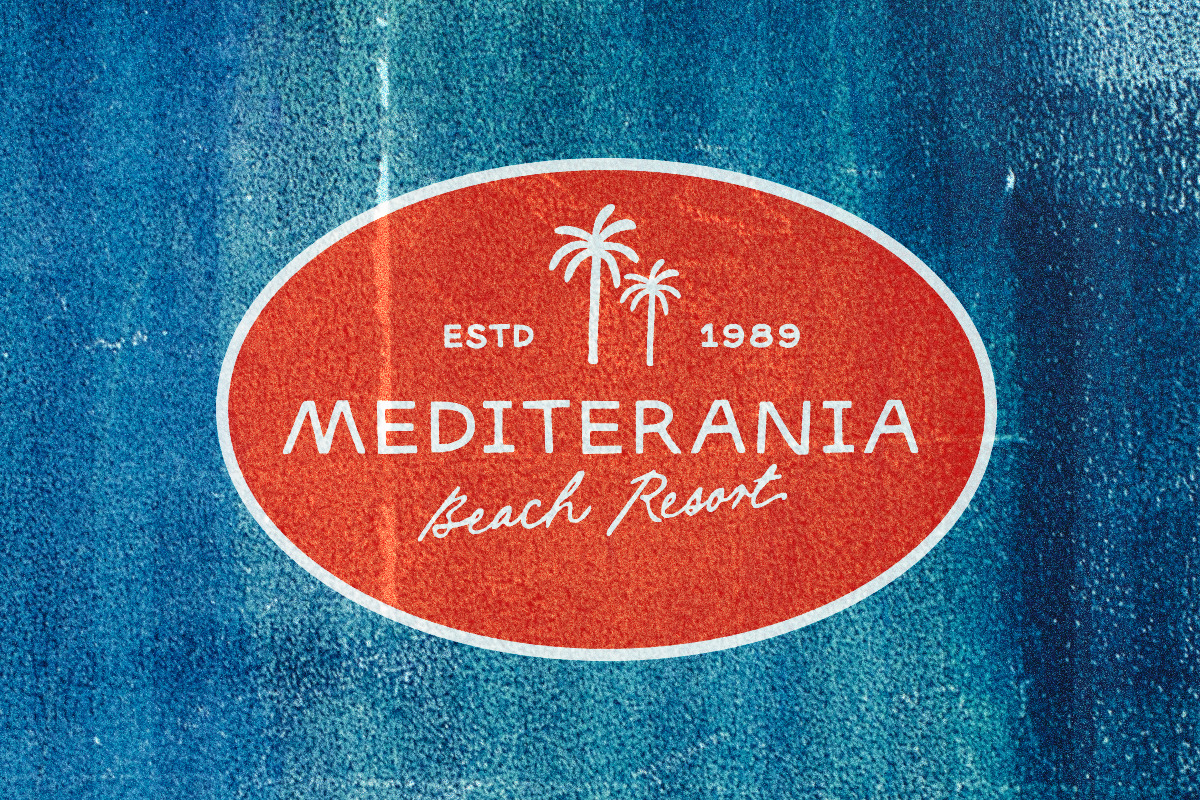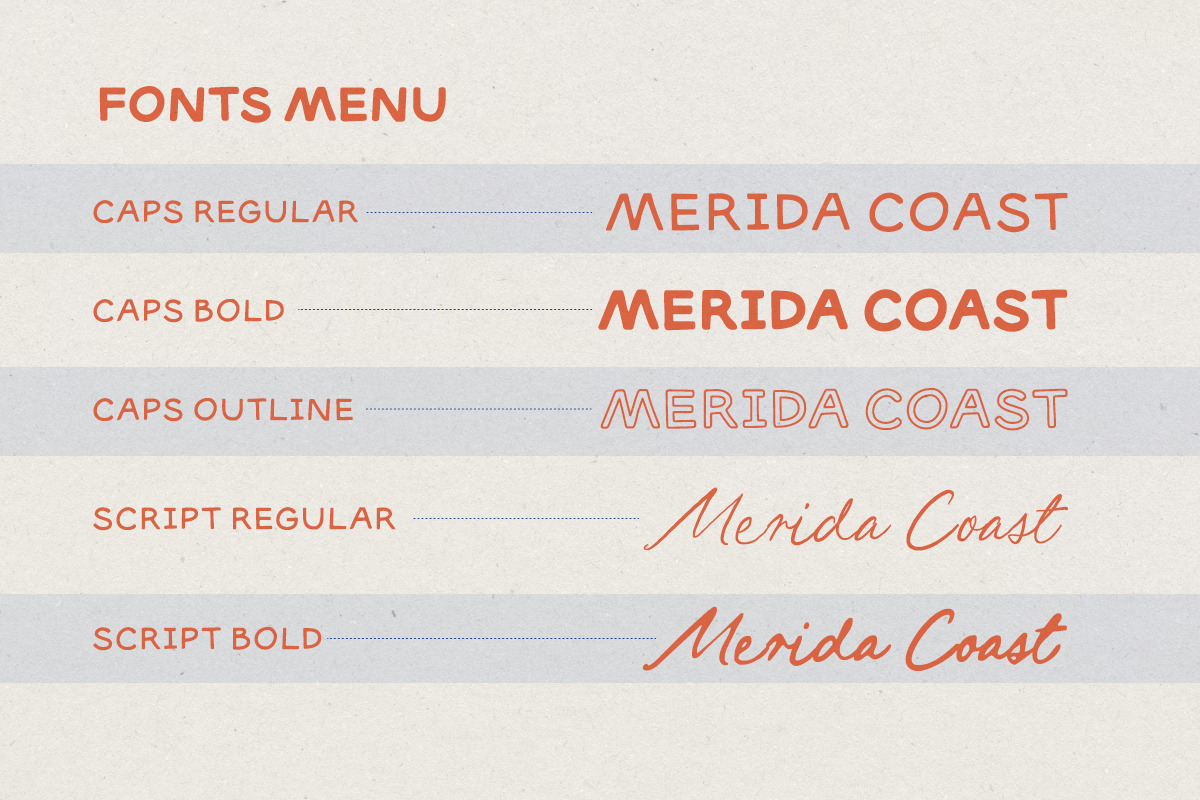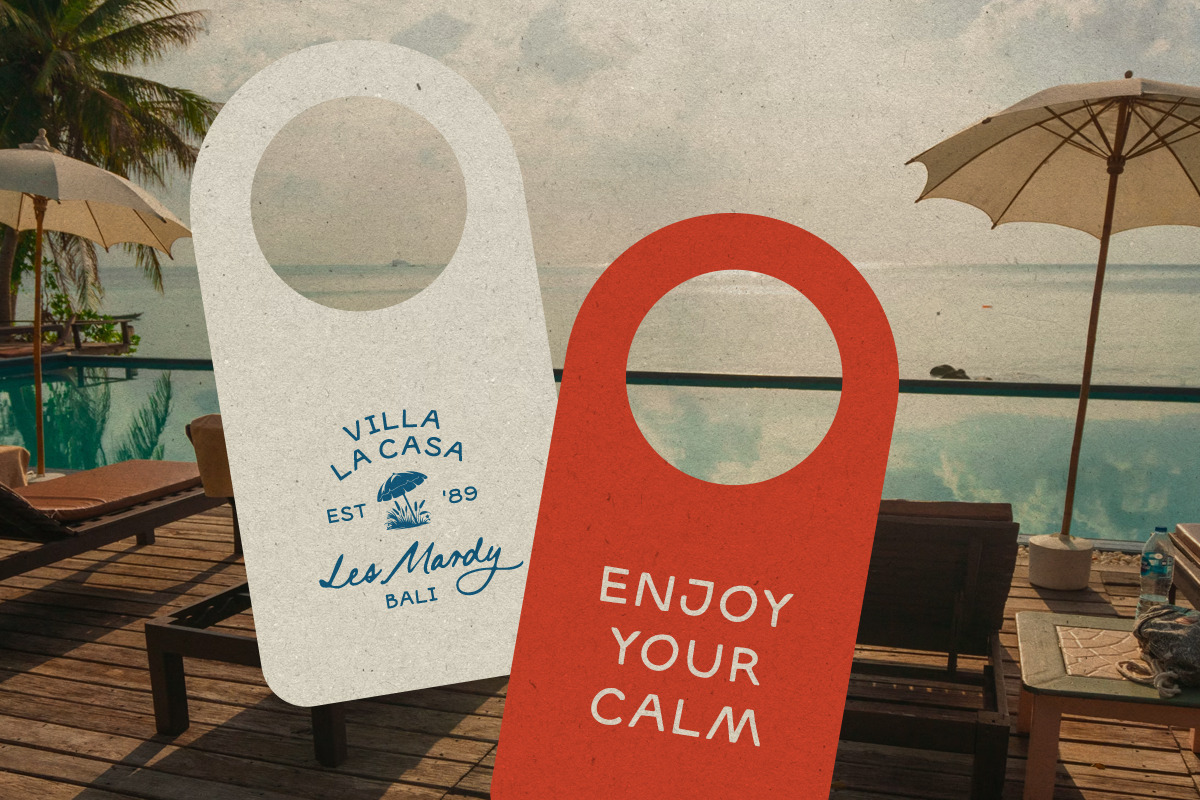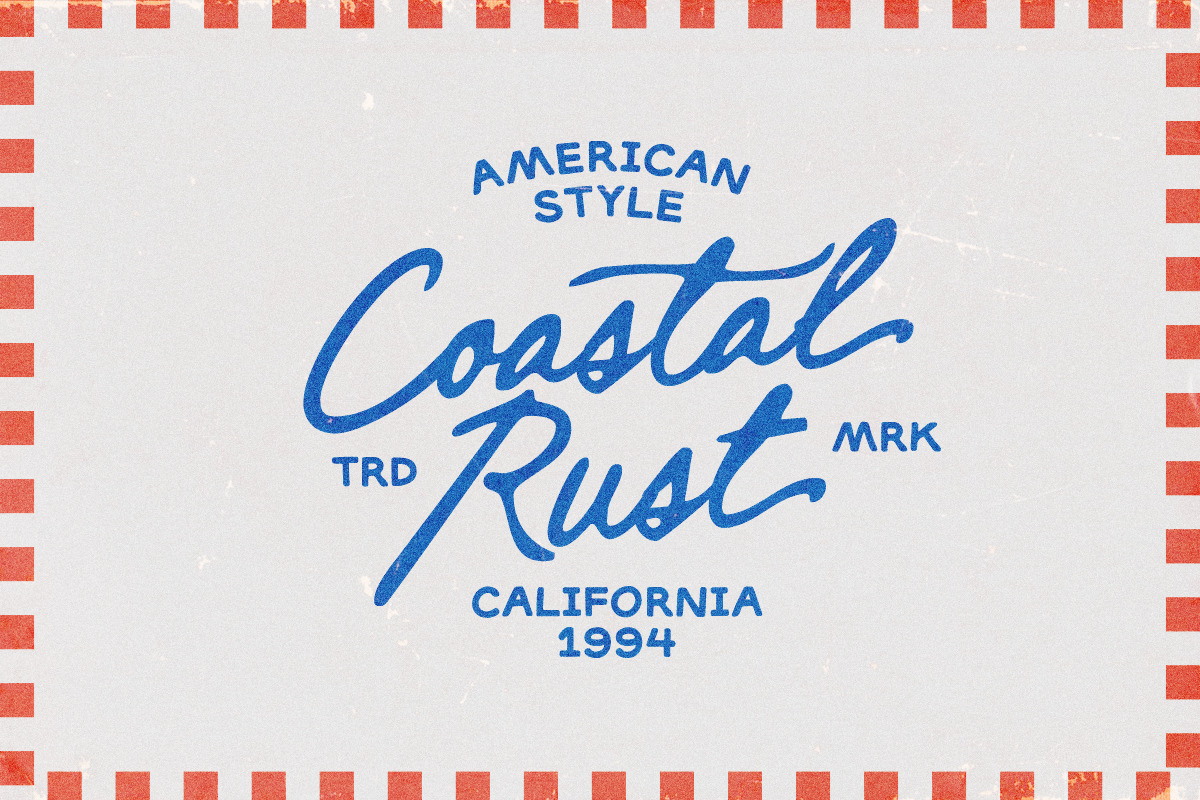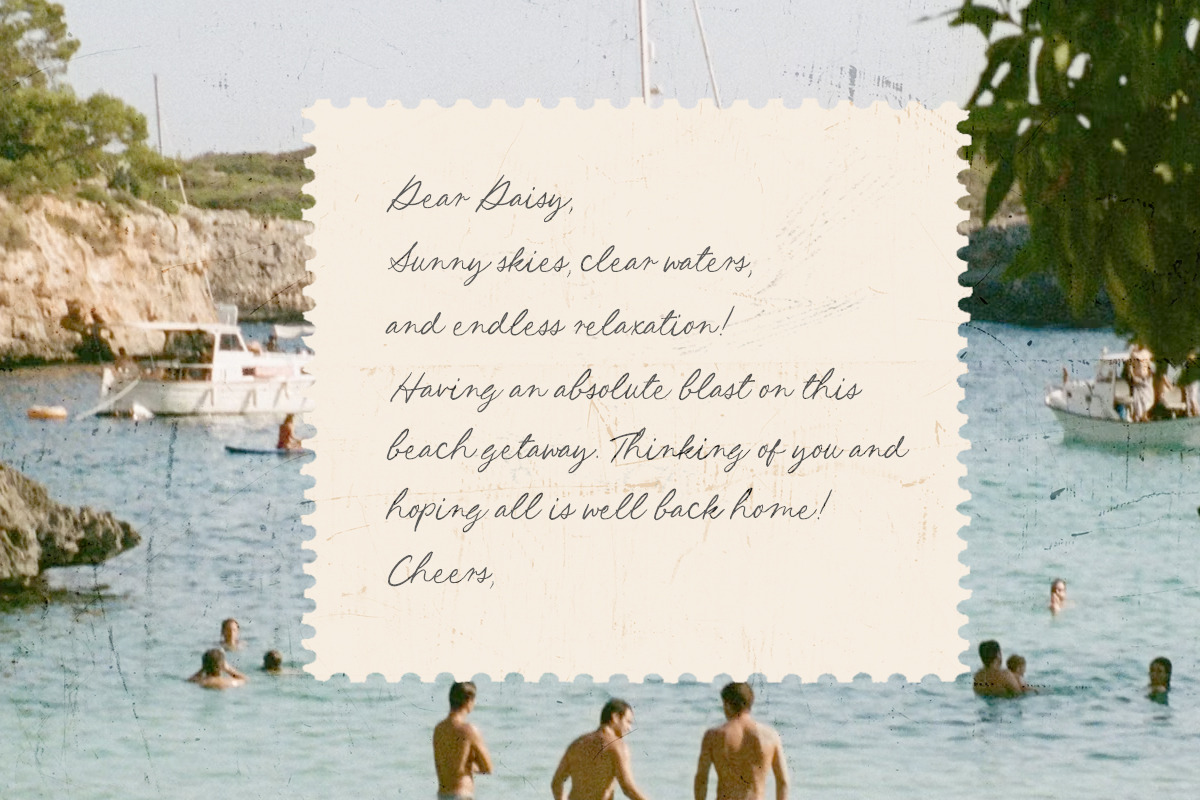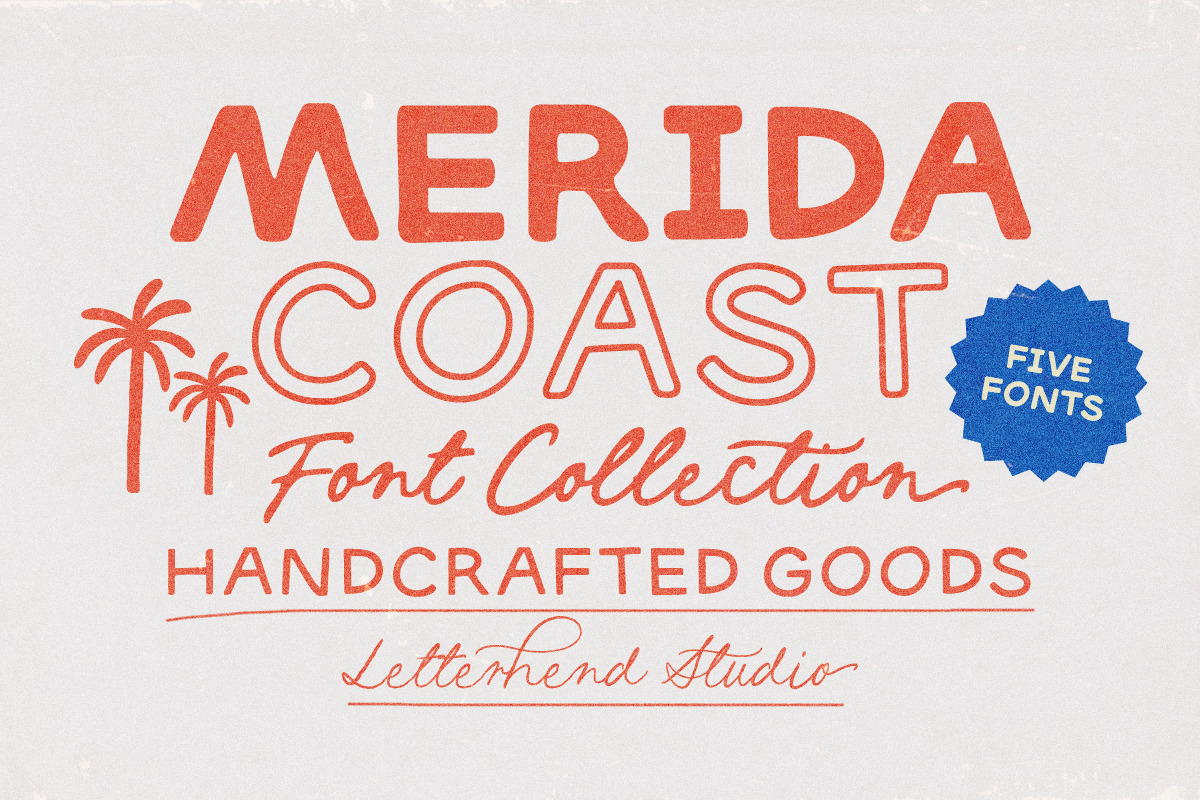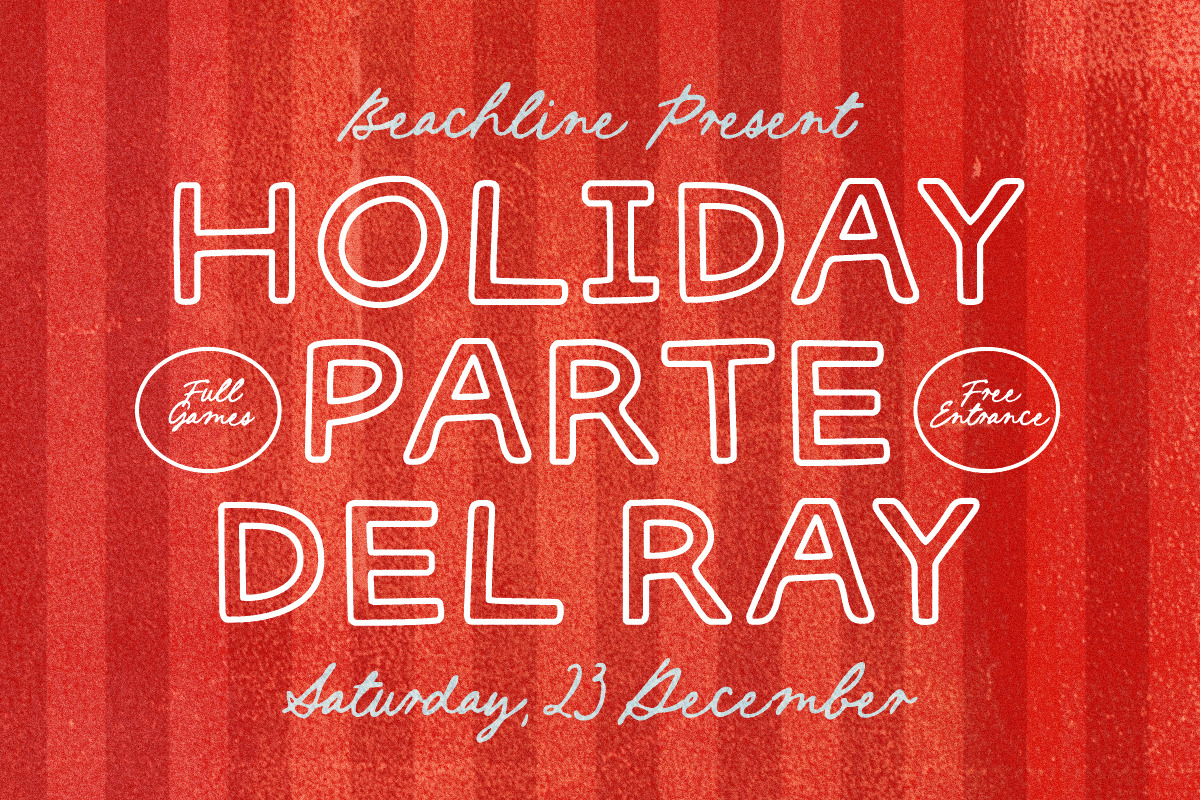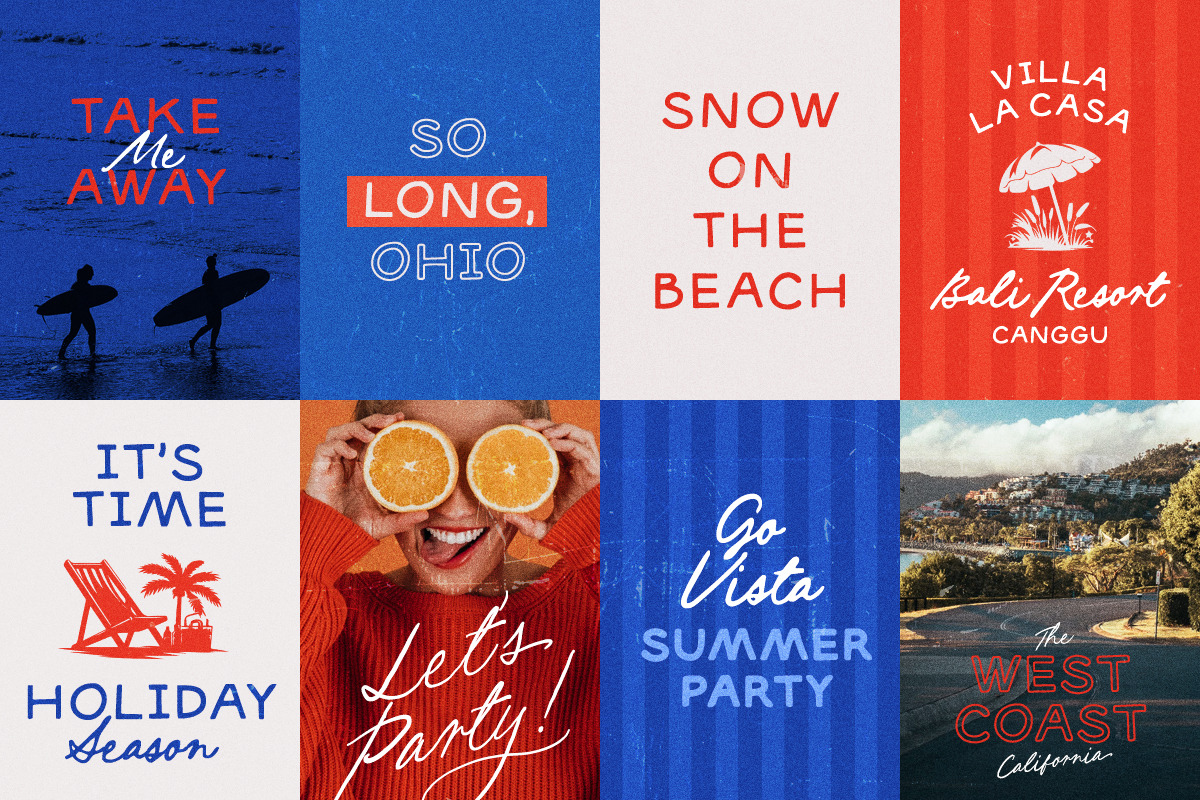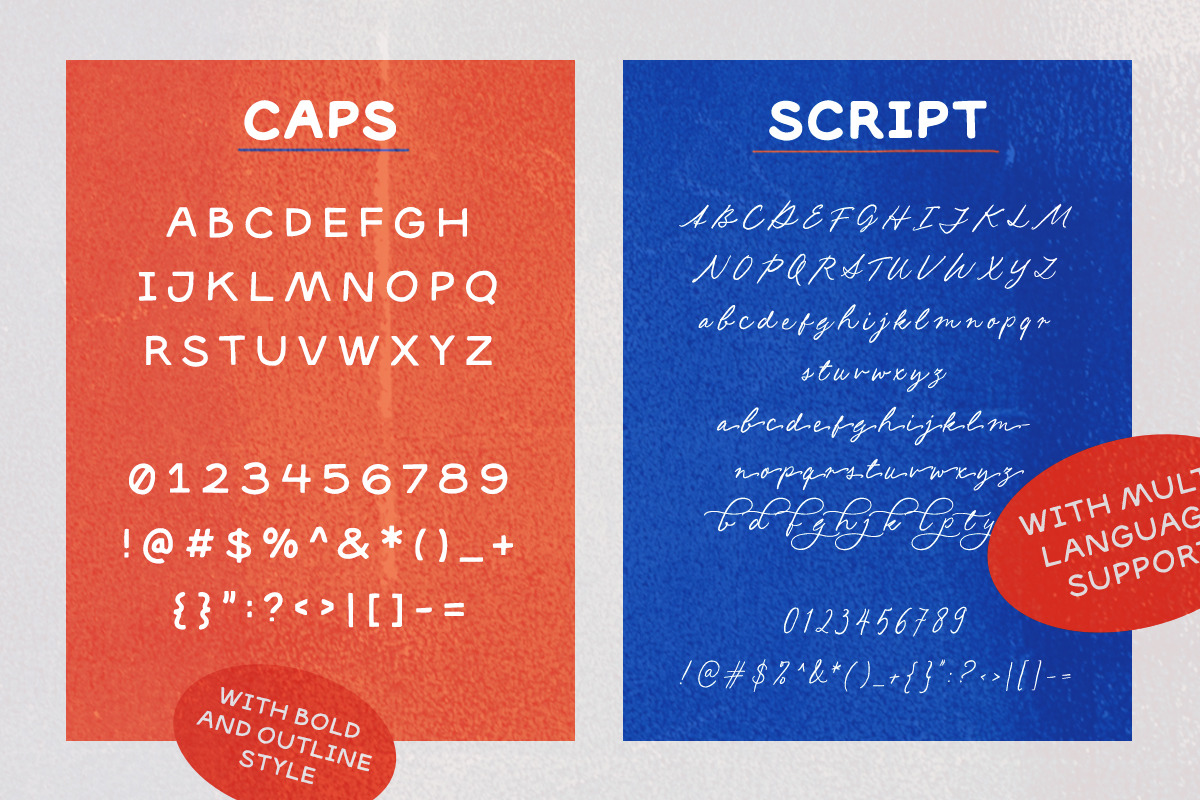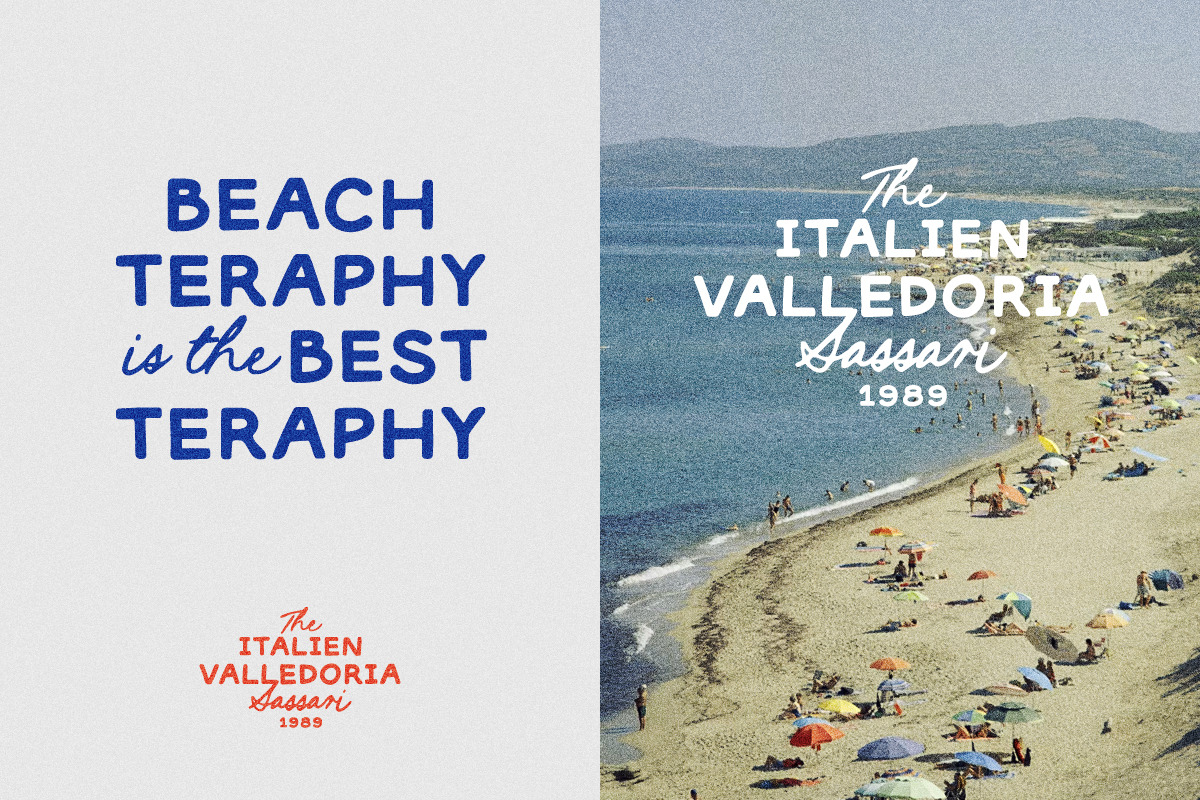
Merida Coast Font Collection
Merida Coast captures the spirit of classic beach vacations through a versatile collection of handcrafted lettering styles. Rounded sans fonts pair naturally with elegant handwritten scripts, offering endless opportunities for layered headlines, logos, and editorial layouts that feel relaxed yet refined.